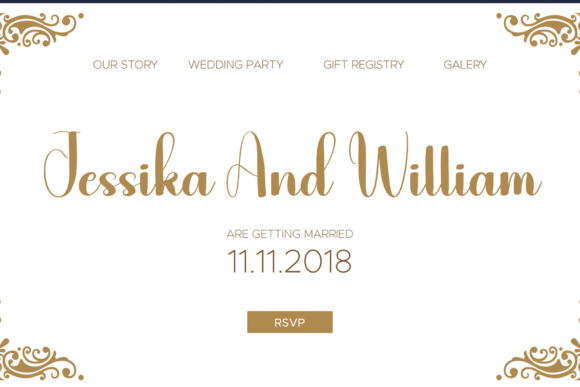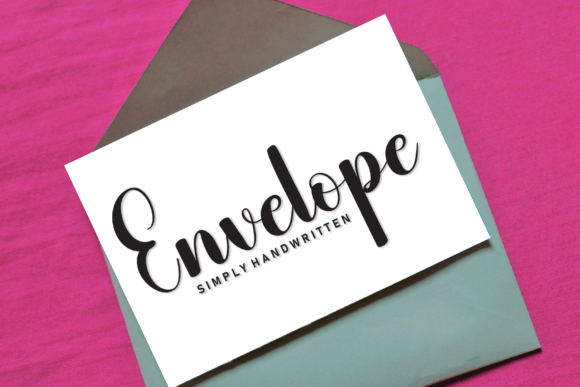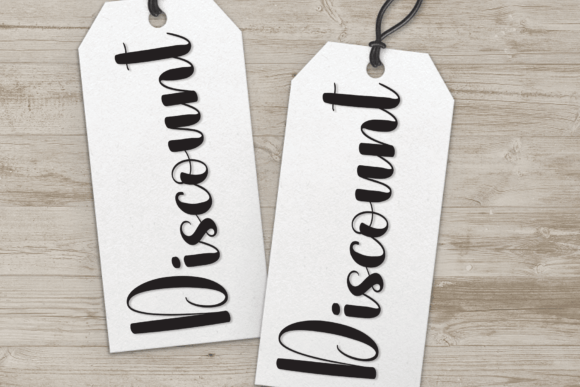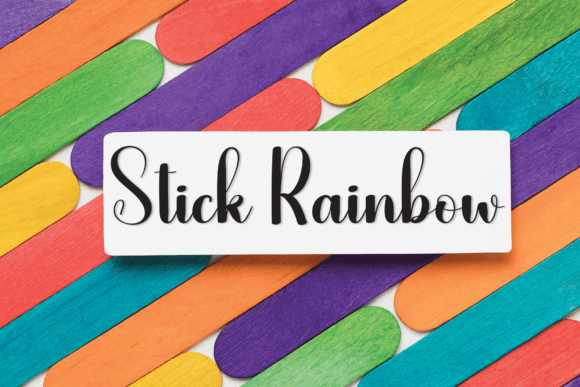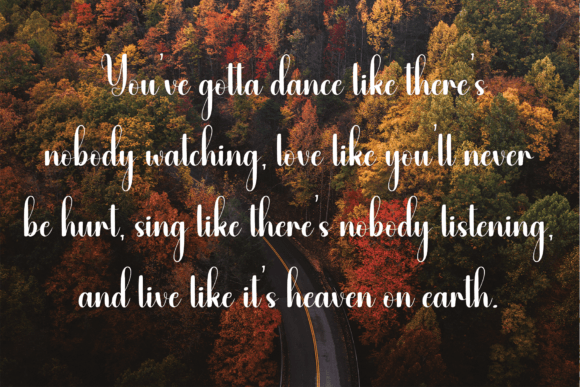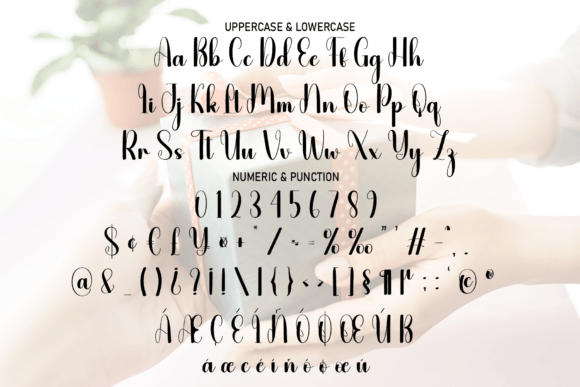
Introduction to Daily Gift Font
Daily GIft is a delicate and elegant handwritten font.
Its distinct and well-balanced letters make this font a masterpiece Fall in love with its incredibly versatile style and use it to create spectacular designs.